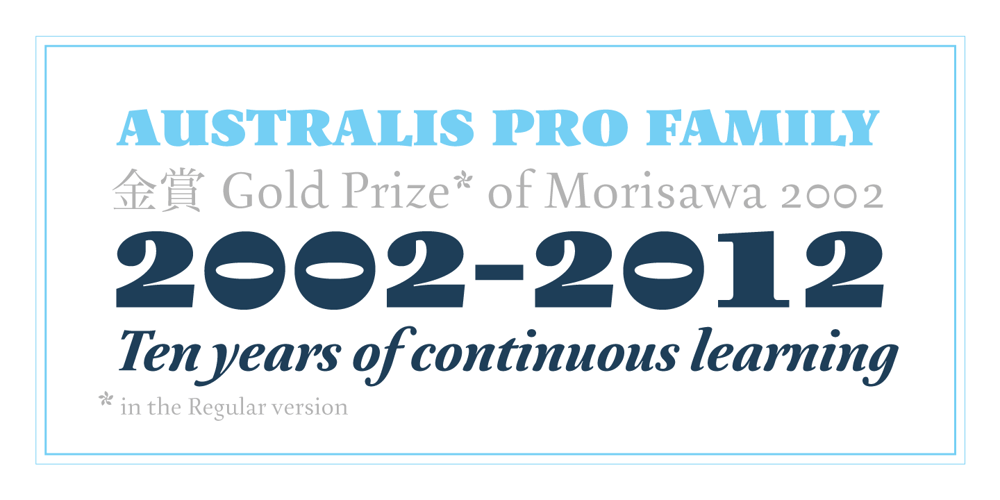
Australis Pro Font Family was designed by Francisco Gálvez and published by Latinotype. Australis Pro contains 6 styles and family package options. Australis is a hybrid roman font that won first prize in the Morisawa International Type Design Competition in 2002. After 10 years the family is finally complete and its release coincides with the reopening of the competition in 2012, in Japan. Designed by Francisco Gálvez Pizarro.